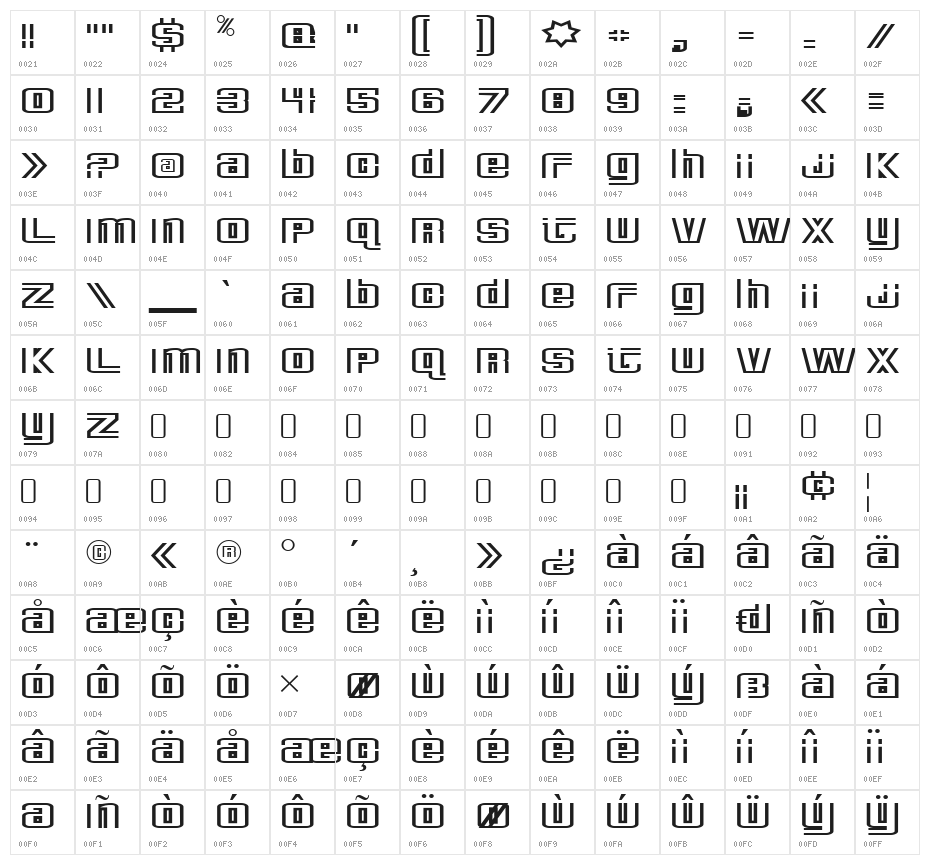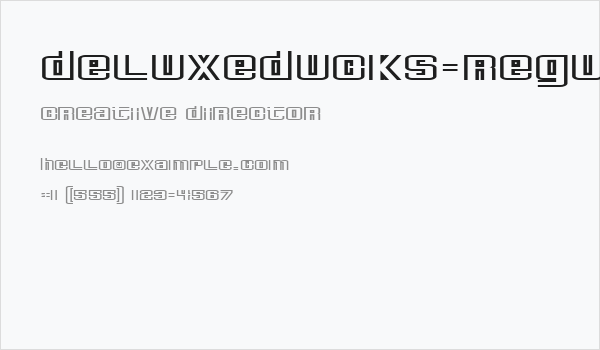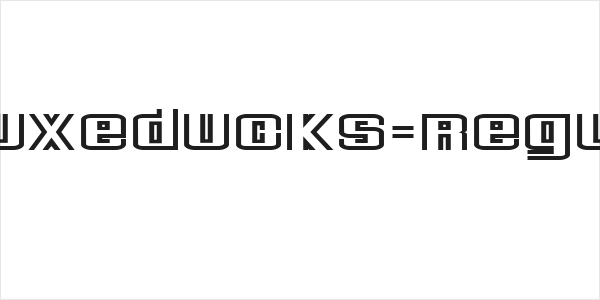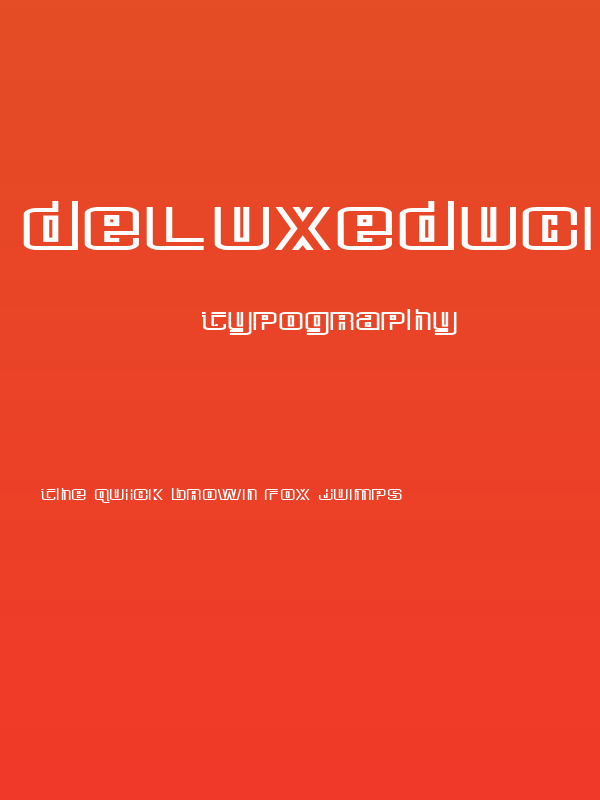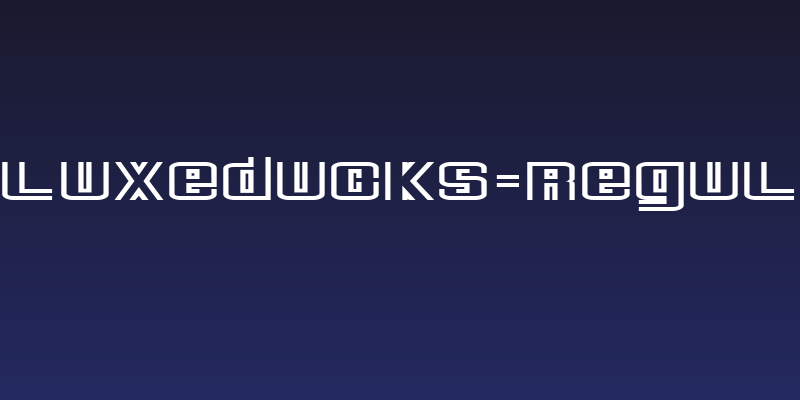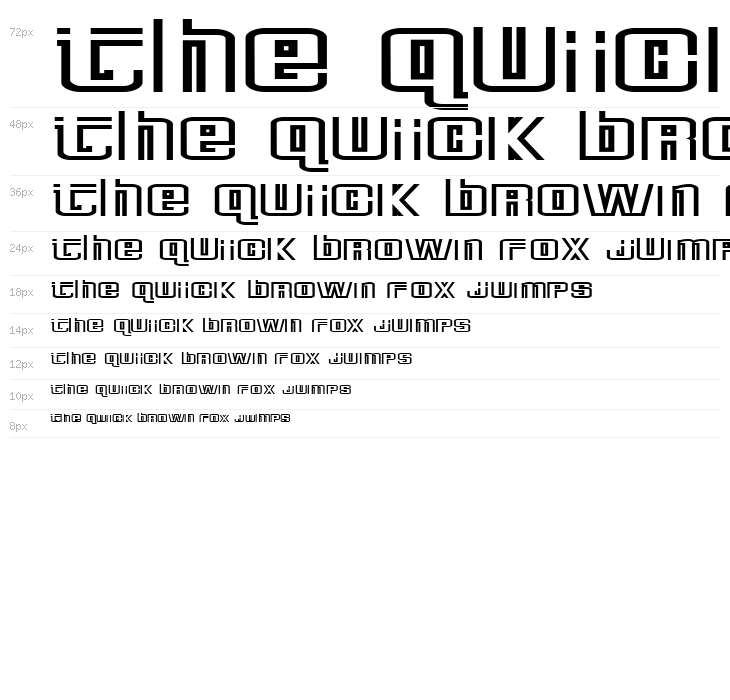
DeluxeDucks-Regular Font
DeluxeDucks-Regular Description
This font features a bold, geometric design with a distinct double-line style that gives it a futuristic and digital appearance. The characters are structured with sharp angles and clean lines, creating a sense of precision and modernity. The uppercase and lowercase letters maintain a consistent style, with the uppercase being slightly more elongated. Numbers and special characters follow the same design principles, ensuring uniformity across the typeface. The font's unique aesthetic makes it stand out, ideal for projects that require a modern and tech-savvy look.
| Proposed Projects | Ideal for tech branding, digital media, video game titles, and futuristic-themed designs. |